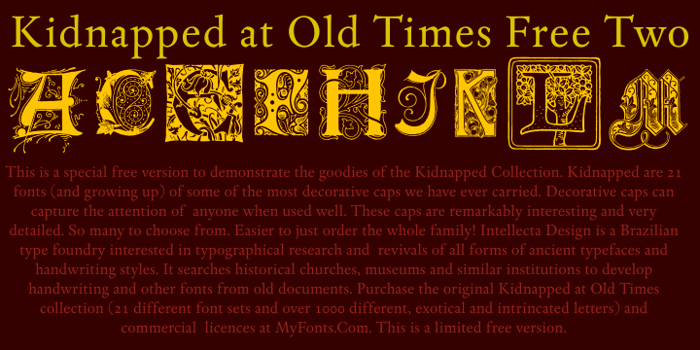
Kidnapped At Old Times Free Two Font
Kidnapped at Old Times Free Two, by Intellecta Design
This is a special free version to demonstrate the goodies of the Kidnapped Collection. Kidnapped are 21 fonts (and growing up) of some of the most decorative caps we have ever carried. Decorative caps can capture the attention of anyone when used well. These caps are remarkably interesting and very detailed. So many to choose from. Easier to just order the whole family! Intellecta Design is a Brazilian type foundry interested in typographical research and revivals of all forms of ancient typefaces and handwriting styles. It searches historical churches, museums and similar institutions to develop handwriting and other fonts from old documents.